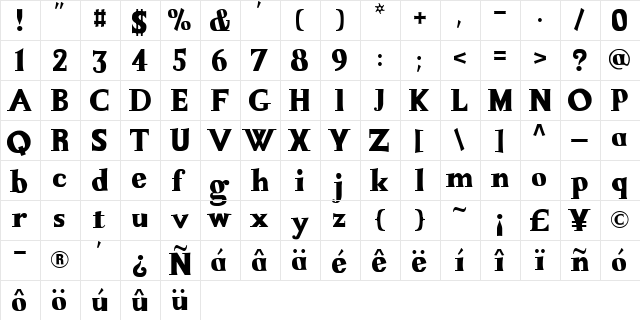
La Mamucha Regular
Design Context for La Mamucha Typeface
La Mamucha takes a measured approach to typography — its balanced proportions and neutral character make it a reliable workhorse for both digital and print work.